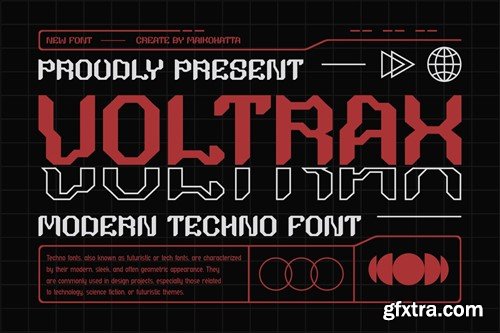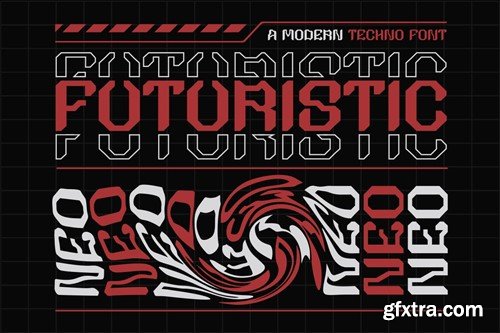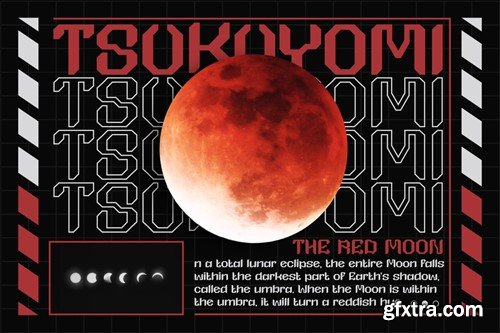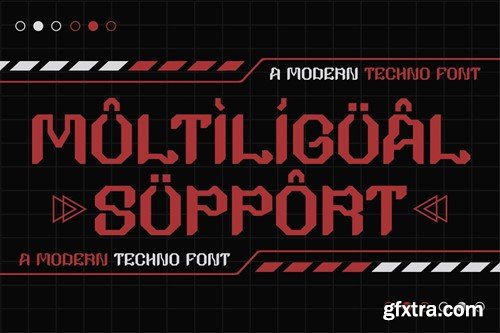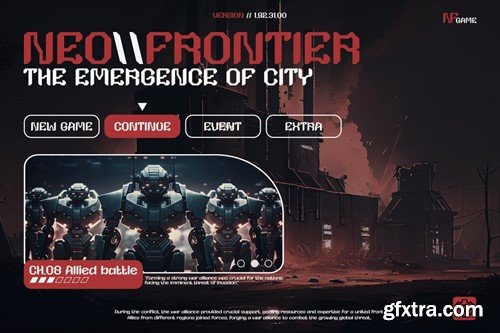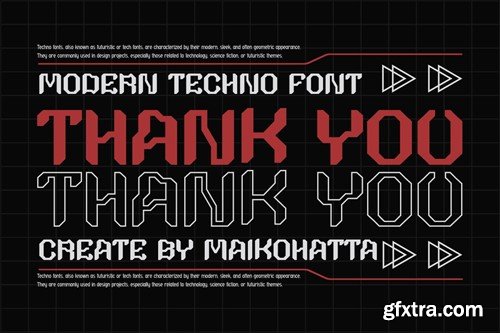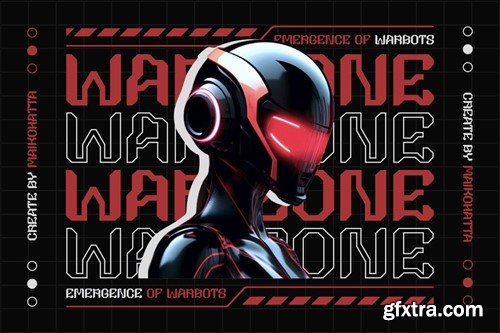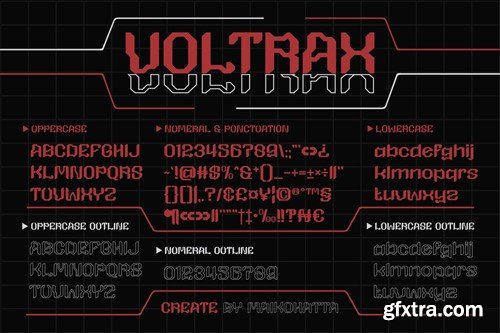
Voltrax - 现代 techno 字体 JH7ADPK
Voltrax - Modern Techno Font
Introducing our new product Voltrax - Modern Techno Font This Font is a type of lettering that features a futuristic design inspired by advanced technology. This font reflects the digital era and technological advancements, bringing a sense of modernity, innovation, and energy to any design. With sharp lines, geometric letter shapes, and futuristic elements, this font is suitable for projects related to technology, robotics, science, and modern lifestyle. This font are often found in logos, website designs, posters, and other creative projects that require a futuristic touch. available